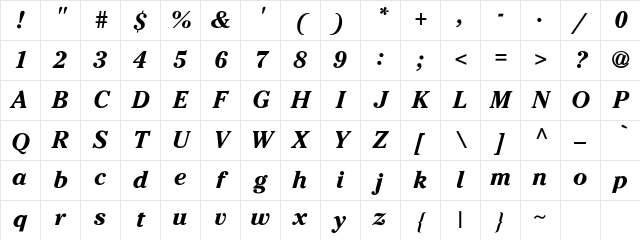
Complete Cheltenham-Bo-i Regular glyph index. Displaying only characters natively supported by Cheltenham-Bo-i Regular font.
Cheltenham-Bo-i is a composed and adaptable typeface that performs quietly and consistently across a wide range of design contexts.